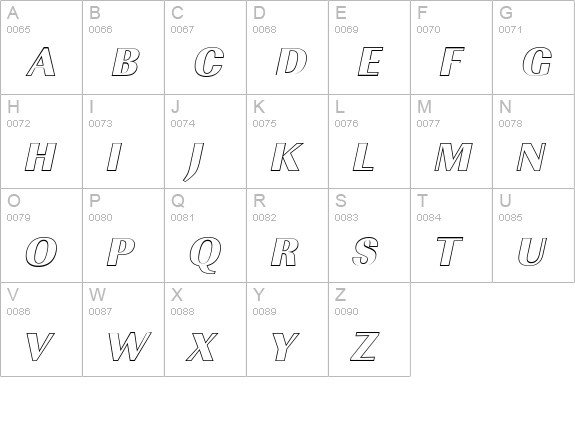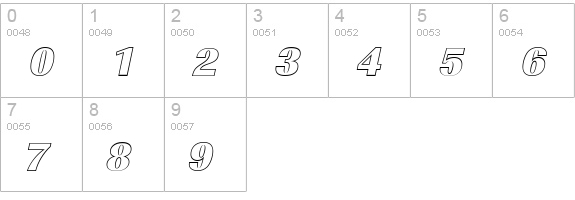
ImperialOu-Heavy-Italic is a heavy, high-impact, italic variant in the ImperialOu typeface family \xE2\x80\x94 well suited to high-impact headlines, posters, and display advertising.
ImperialOu-Heavy-Italic font is a stunning and elegant typeface that exudes a sense of grandeur and sophistication. Its intricate design features sharp, bold lines and graceful curves that make it stand out from the crowd. This font is perfect for adding a touch of luxury and class to any design project, whether it be for editorial purposes, branding, or advertising. The ImperialOu-Heavy-Italic font is not only visually striking but also highly versatile, making it suitable for a wide range of applications. Its bold and italicized style adds a dramatic flair to headlines, titles, and other prominent text, while still maintaining readability and legibility. Best of all, this exquisite font is available for free download at FontsMarket.com. So whether you're a designer looking to elevate your projects or simply someone who appreciates beautiful typography, be sure to add ImperialOu-Heavy-Italic to your font collection today.